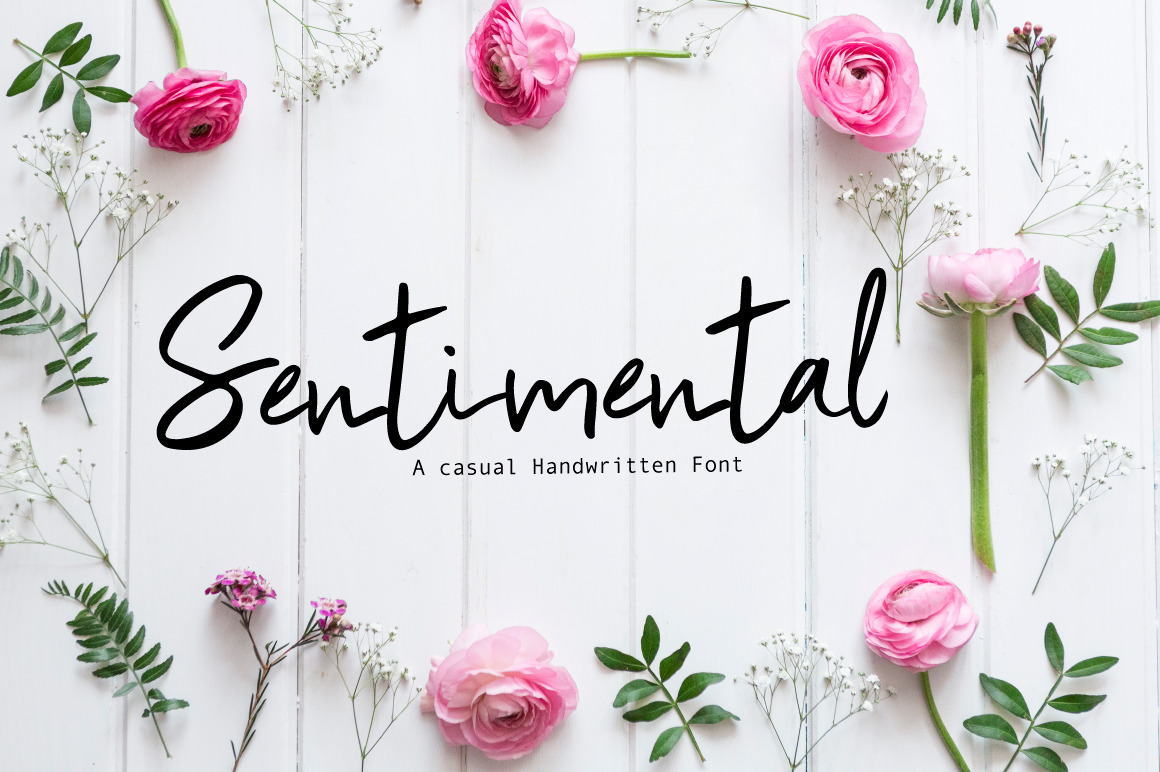
Sentimental
It's handwritten script font.
This font is perfect for wedding invitation or your blog. Also with their help, you can create a logo or beautiful frame for your home. Or just use for your small business, book covers, stationery and more.
Comes with upper and lowercase characters, numerals, and supports international languages.